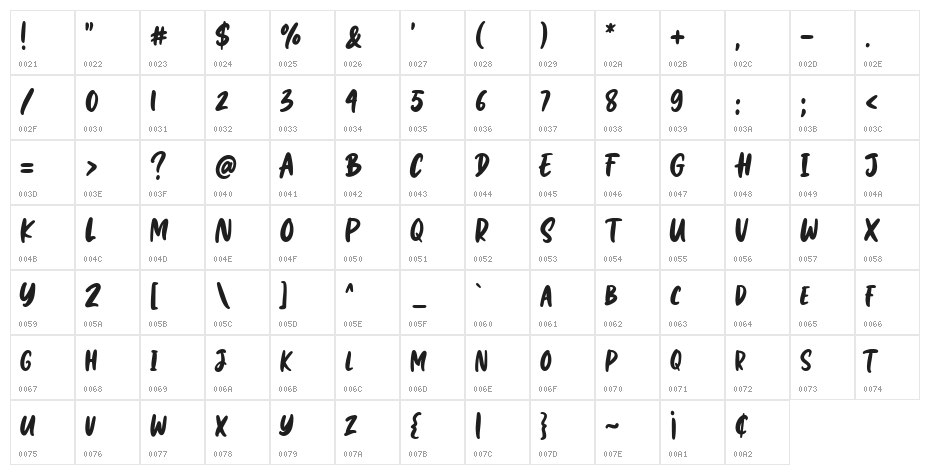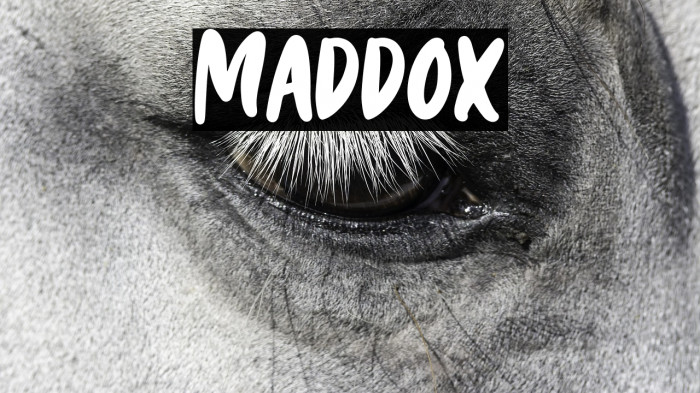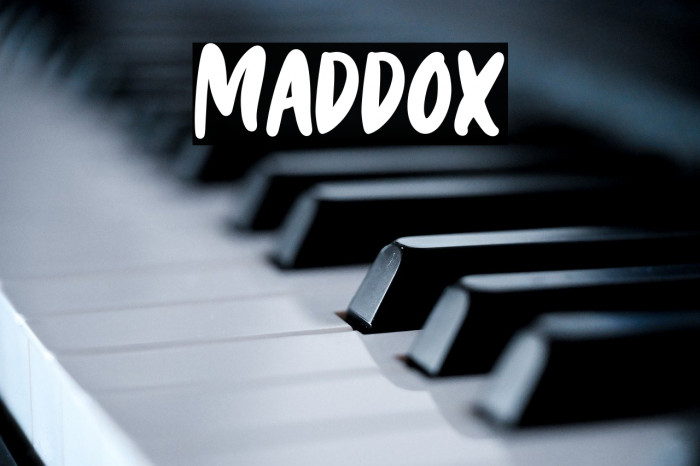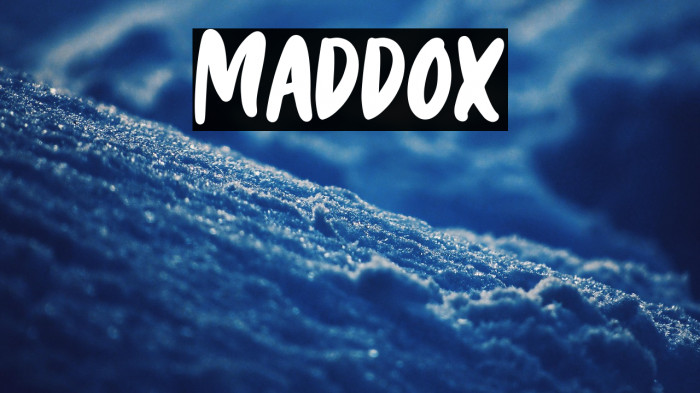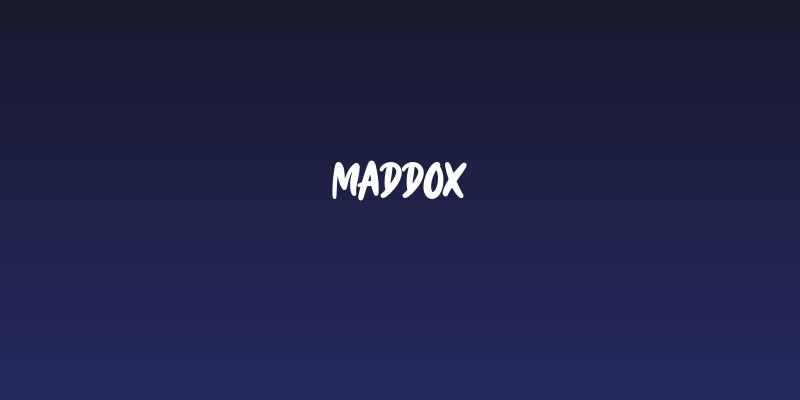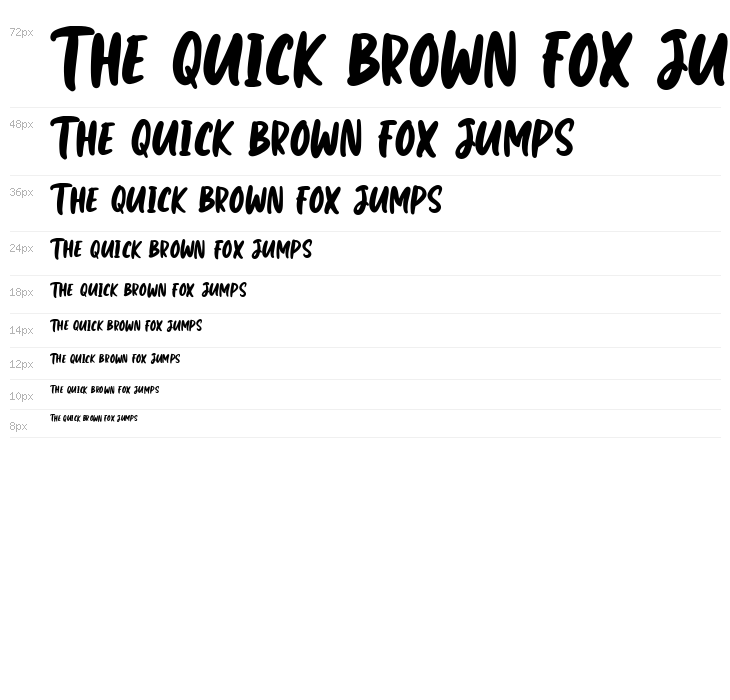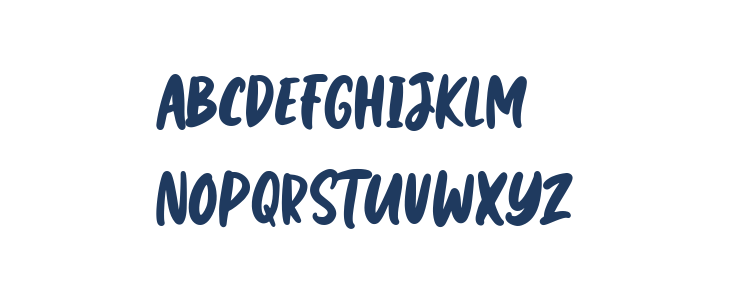
Maddox Font
Maddox Description
This font features a bold and energetic handwritten style, characterized by its thick strokes and dynamic curves. The letters are slightly slanted, giving a sense of movement and fluidity. The uppercase and lowercase letters maintain a consistent style, with rounded edges and a playful appearance. The numbers and special characters follow the same design principles, ensuring uniformity across all glyphs. This font exudes a casual and friendly vibe, making it suitable for projects that require a personal touch.
| Overall Style | Casual, Playful |
| Proposed Projects | Ideal for branding, social media graphics, posters, and invitations where a personal and lively touch is desired. |